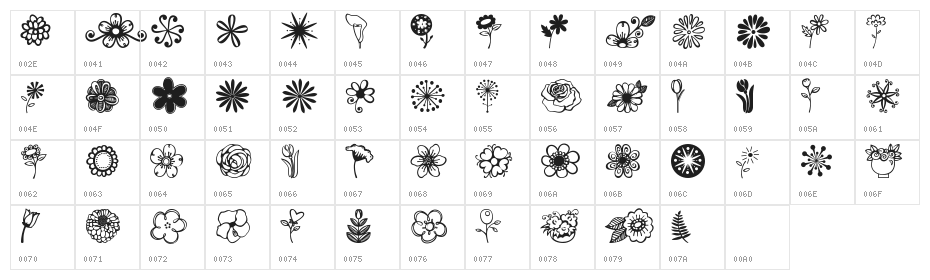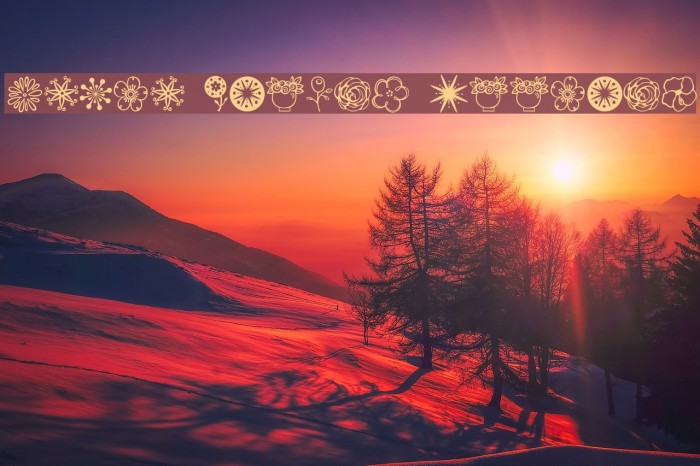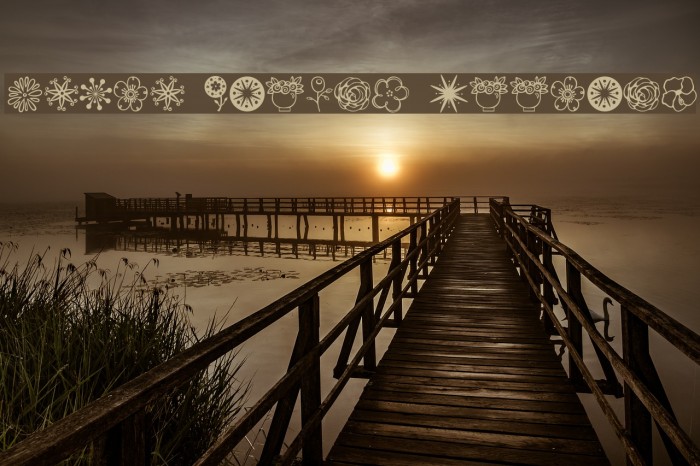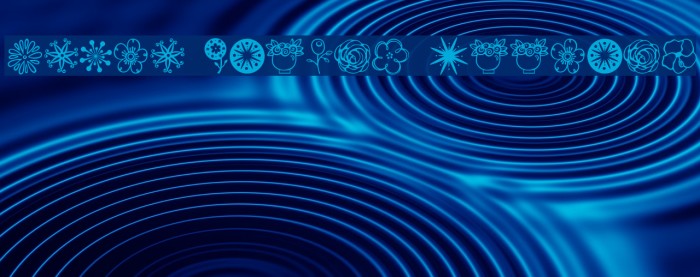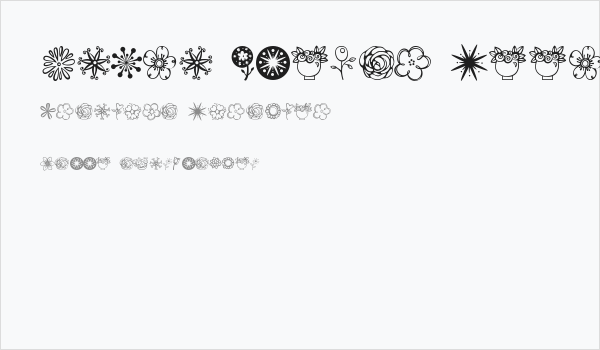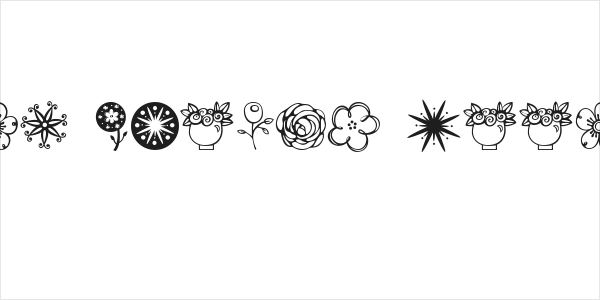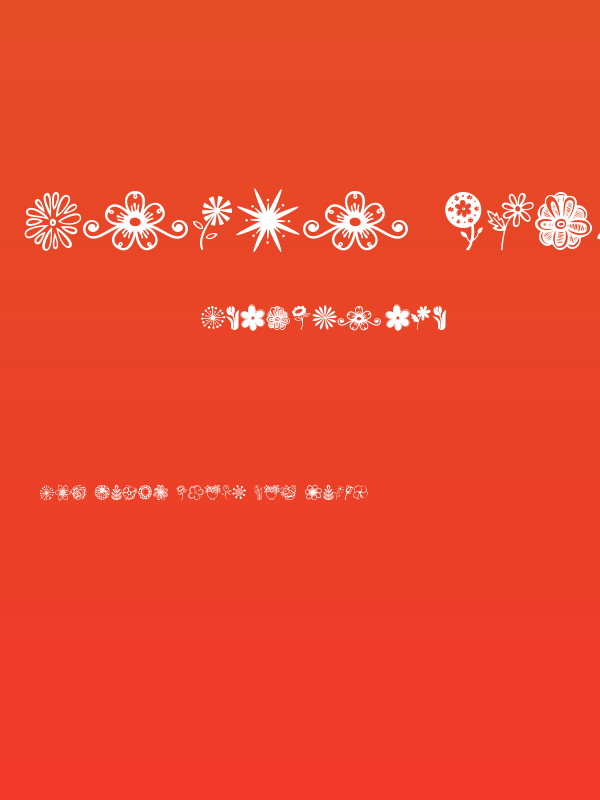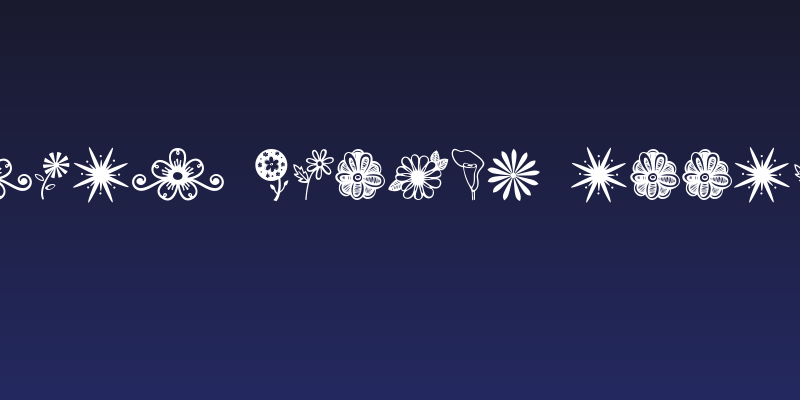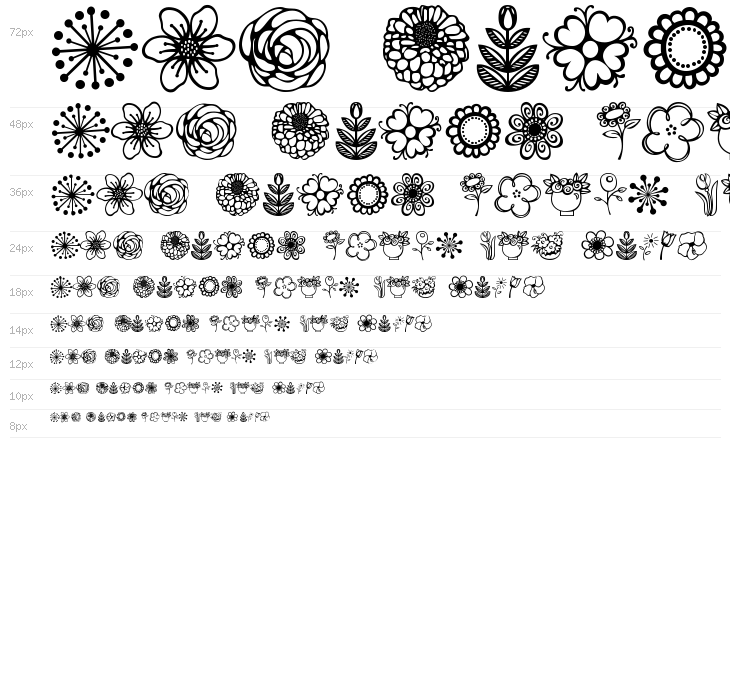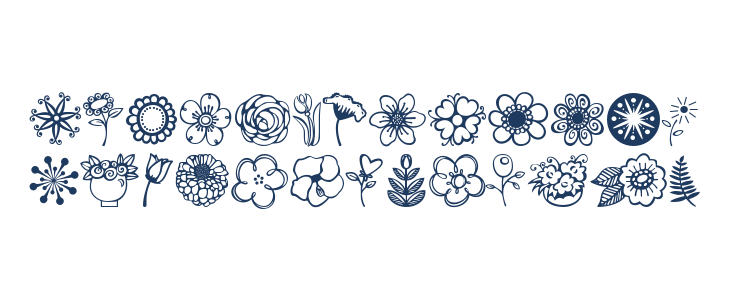
Janda Flower Doodles Font
Janda Flower Doodles Description
This collection features a delightful array of hand-drawn floral doodles, each with its own unique charm and character. The designs range from simple, minimalist flowers to more intricate and detailed blossoms, capturing a whimsical and playful essence. The doodles are presented in black and white, allowing for versatility in use and easy integration into various design projects. The organic shapes and flowing lines of the flowers evoke a sense of natural beauty and creativity, making them ideal for adding a touch of nature-inspired elegance to any project.
| Use Case | Decorative elements, Graphic design, Craft projects |
| Proposed Projects | Ideal for greeting cards, invitations, scrapbooking, and decorative elements in graphic design. |